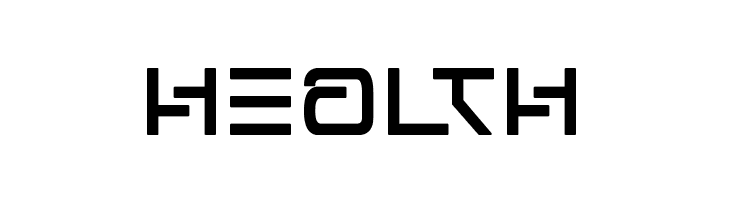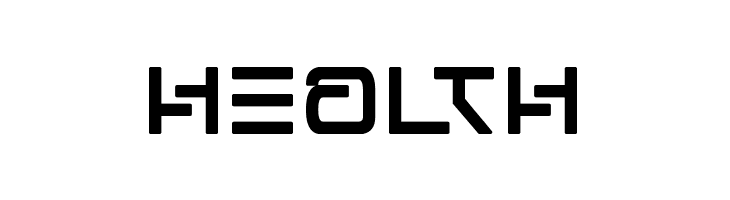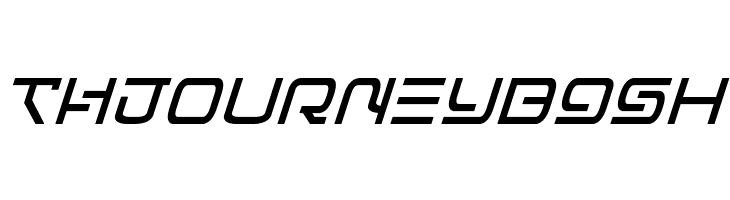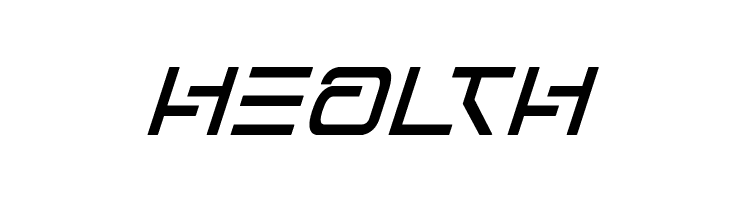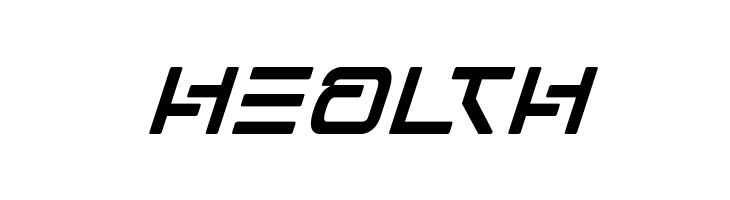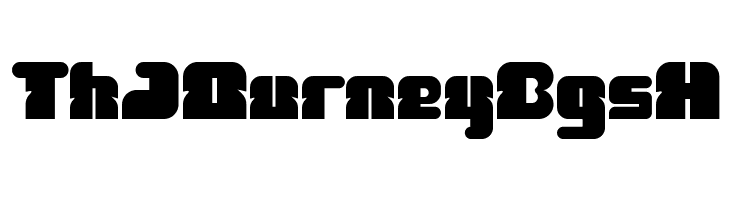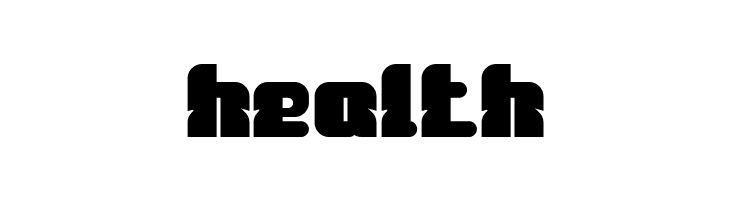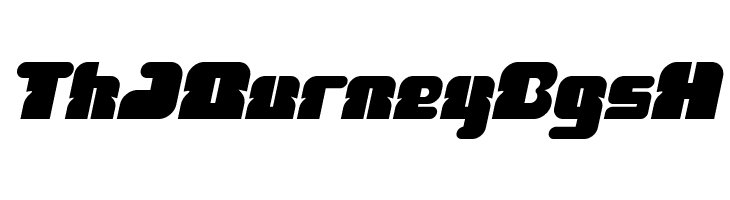
• Foreign Alien Bold
A bold, futuristic font with geometric and alien-like letterforms.
• Foreign Alien Bold Italic
A bold, italicized font with a futuristic and angular design.
• Foreign Alien Extra-Bold
A bold, futuristic font with geometric and angular letterforms.
• Foreign Alien Extra-Bold Italic
A futuristic, bold, and italicized font with sharp angles and a dynamic style.
• Foreign Alien Semi-Bold
A futuristic, geometric font with sharp angles and consistent stroke width.
• Foreign Alien Semi-Bold Italic
A futuristic, semi-bold italic font with angular, geometric shapes.
• FOREST JUMP Bold
A bold, blocky font with thick strokes and minimal spacing, perfect for impactful designs.
• FOREST JUMP Bold Italic
A bold, italic font with thick, rounded strokes and tight spacing, perfect for dynamic designs.